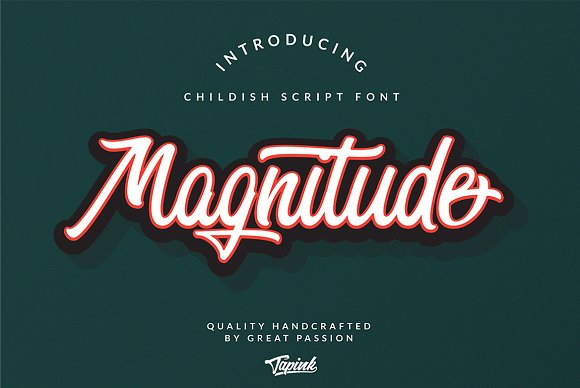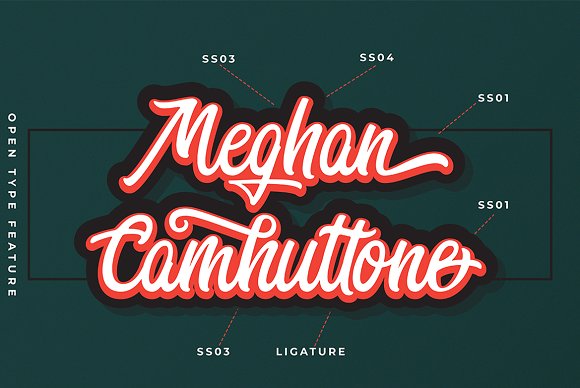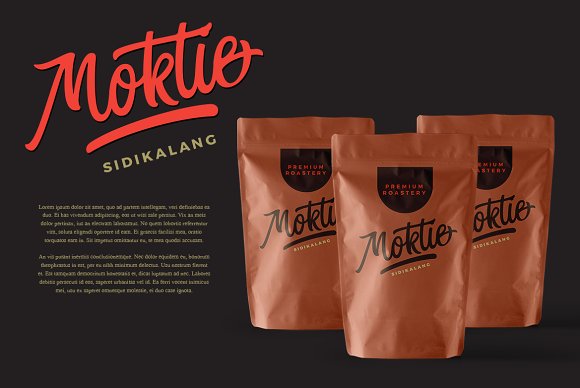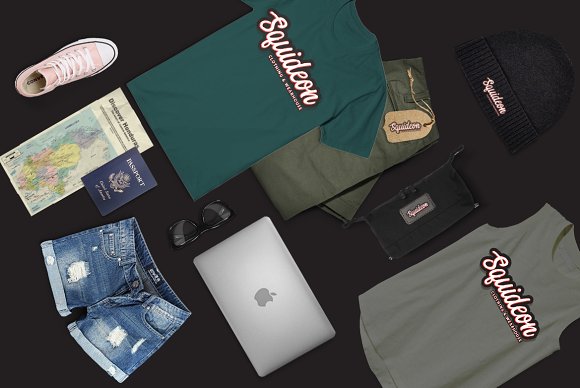
Magnitude Script Font
Magnitude is a handmade script font with elegant & stylish style, classy & catchy look. This come up with opentype features with , stylistic set, ligatures to mix and match the design.
this font is great for your next creative project such as logos, printed quotes, product packaging, headers, Logotype, Letterhead, Poster, Apparel Design, Label, and etc.